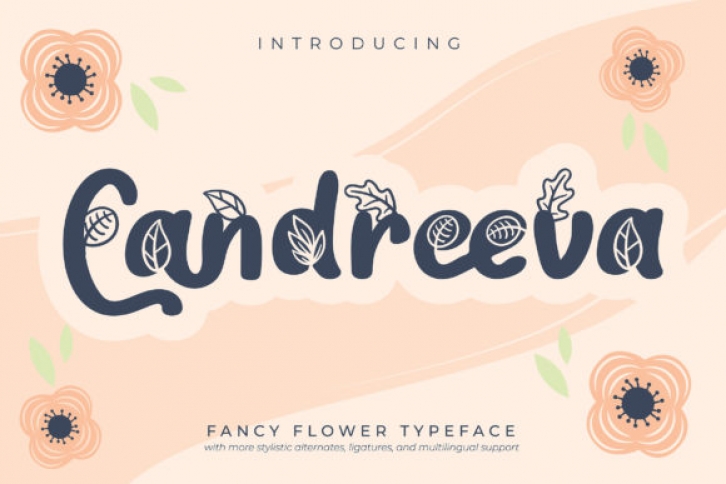
Candreeva is a beautiful decorative font, featuring leaves as ornaments. Perfect for this time of the year, this font will make each of your fall designs come alive!